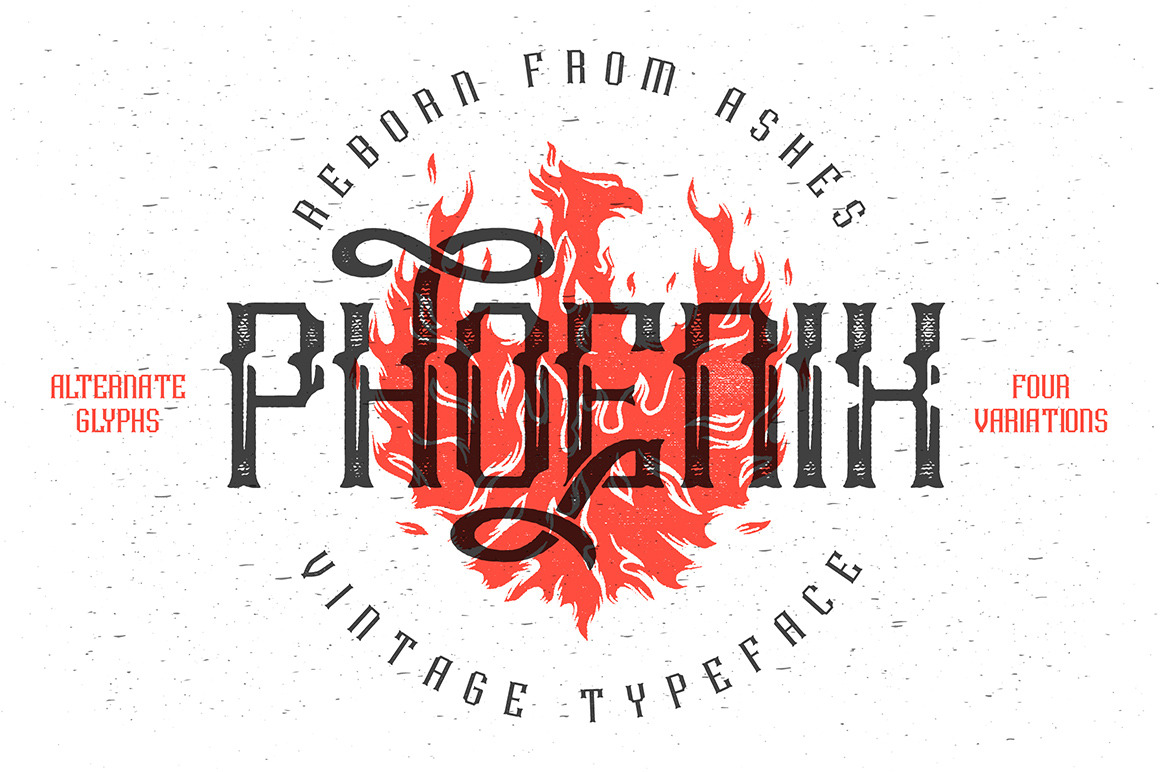
Phoenix typeface
Introducing new typeface "Phoenix". It has four variations for each character: basic one for small text, main font, and two variations with upper or lower swash. Also original clean font (without rough effect) is included. As a bonus a hand drawn illustration of burning phoenix is is available in vector EPS10.